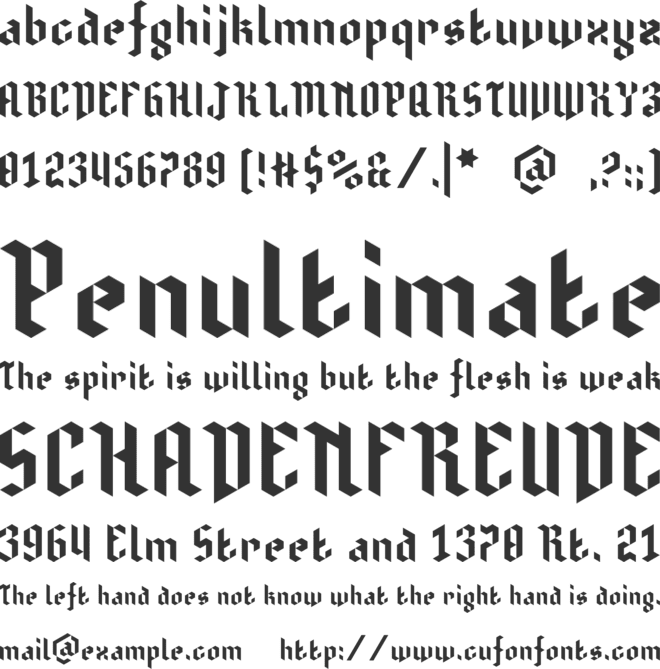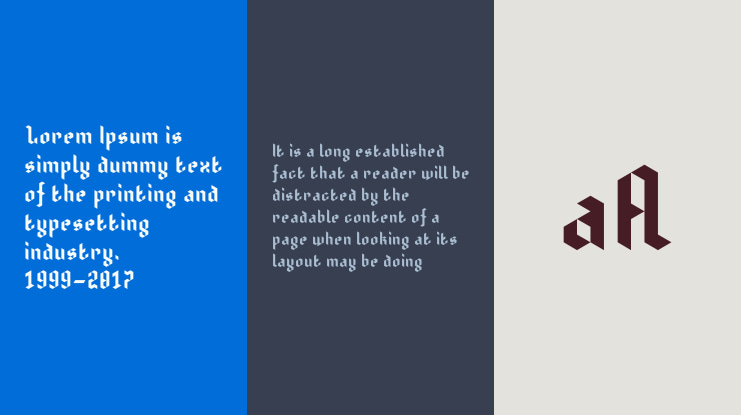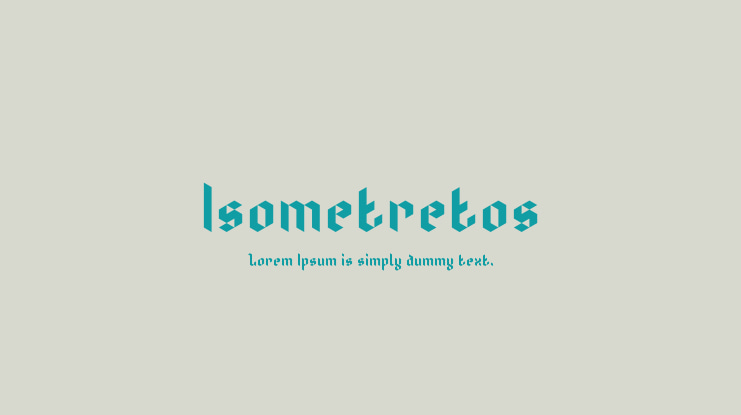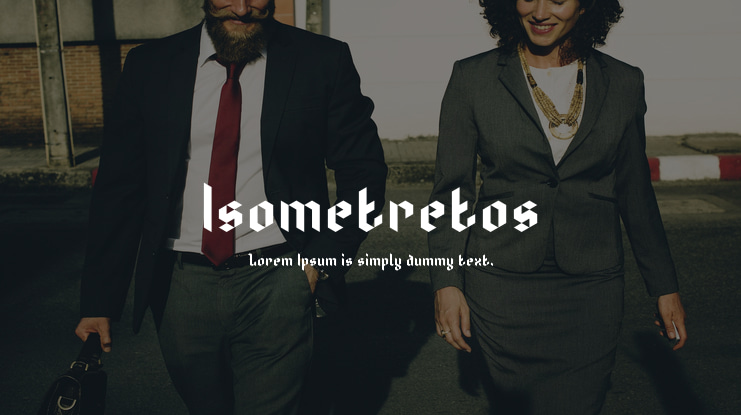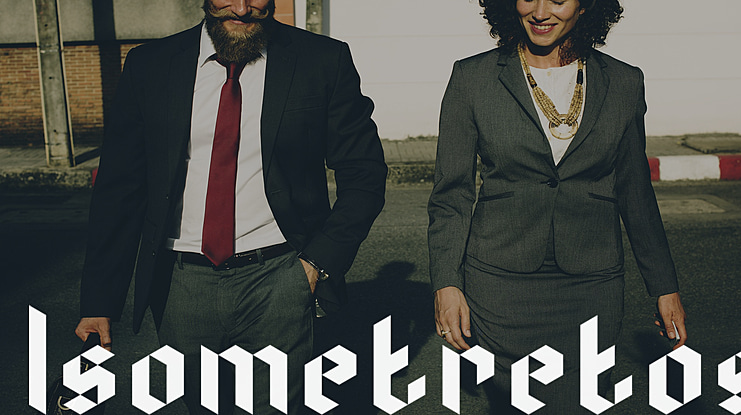
Isometretos Font
Isometretos is a minimal blackletter type made up of triangles on a grid like the one commonly used for isometric projections, which is where it gets it's name, except slightly more similar to the greek origin word "isométrētos".
It comes with upper and lower case letters, number and the more common symbols.